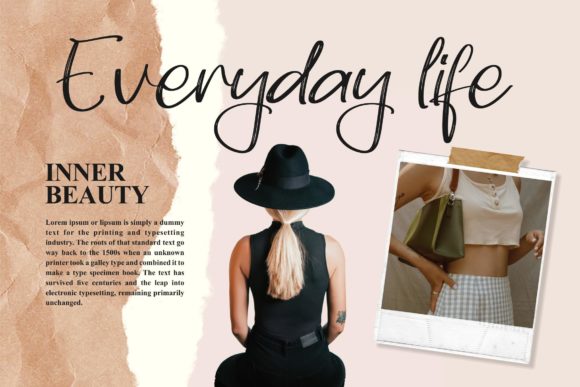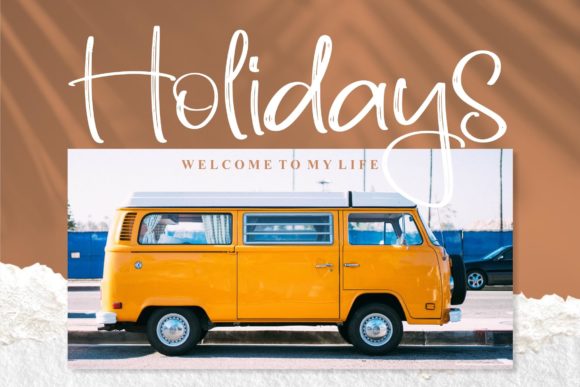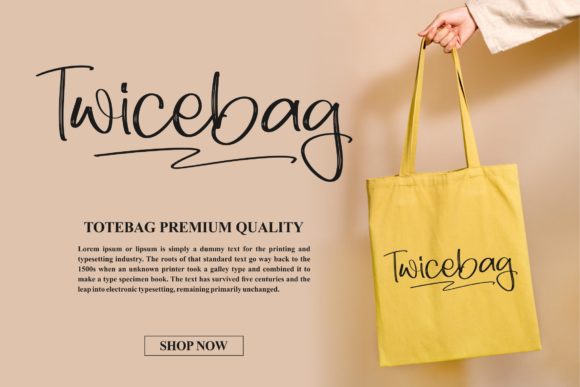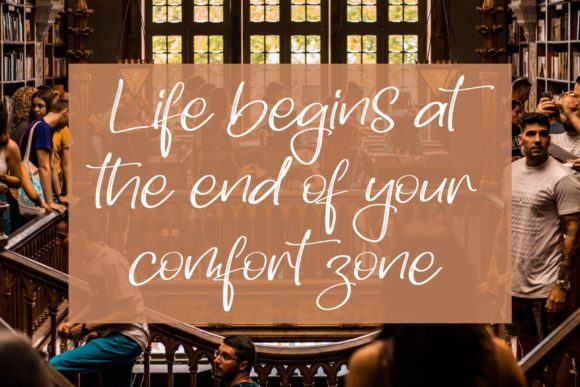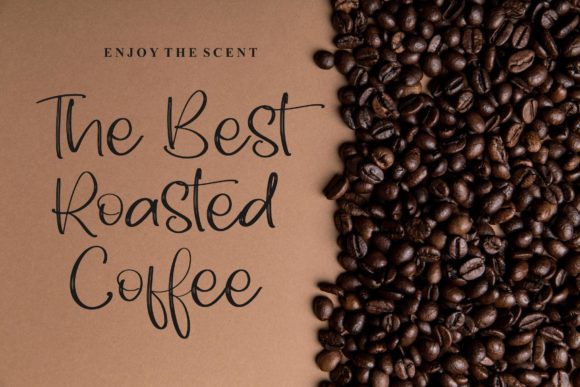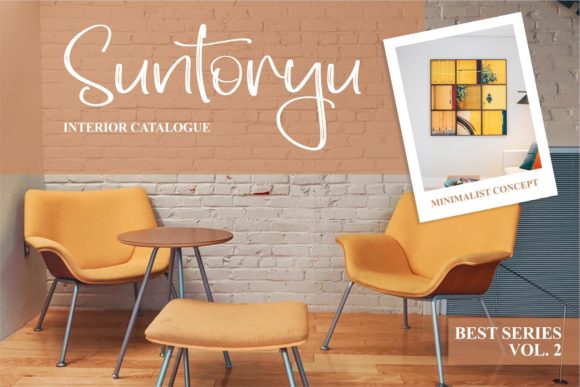
Introduction to Machonia Agatha Font Font
Fonts play a crucial role in design, and the Machonia Agatha Font font is a typeface that brings both character and versatility to any project. Whether you’re working on a branding project, a website, or a print design, the Machonia Agatha Font font offers a unique style that can elevate your work.
Machonia Agatha is a sophisticated handwritten font thatβs great for delivering any message with confidence, authenticity and charm.
Add it confidently to your favorite creations and let yourself be amazed by the outcome generated .
Key Features of Machonia Agatha Font Font
Why Choose Machonia Agatha Font Font?
The Machonia Agatha Font font is more than just a typeface β it’s a design tool that helps you communicate your message with style and clarity. Its unique character set and versatile design make it suitable for a wide range of applications, from elegant invitations to bold headlines.
With its carefully crafted letterforms and balanced proportions, the Machonia Agatha Font font ensures readability and visual appeal across all mediums.
What makes Machonia Agatha Font font special?
The Machonia Agatha Font font stands out with its unique design, exceptional readability, and versatility across various design applications.